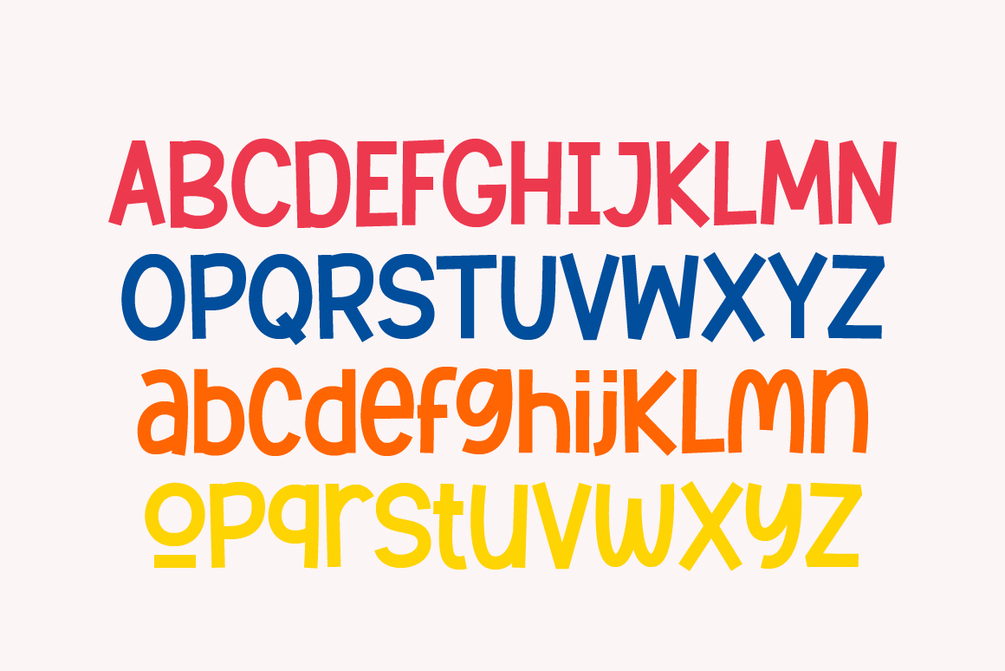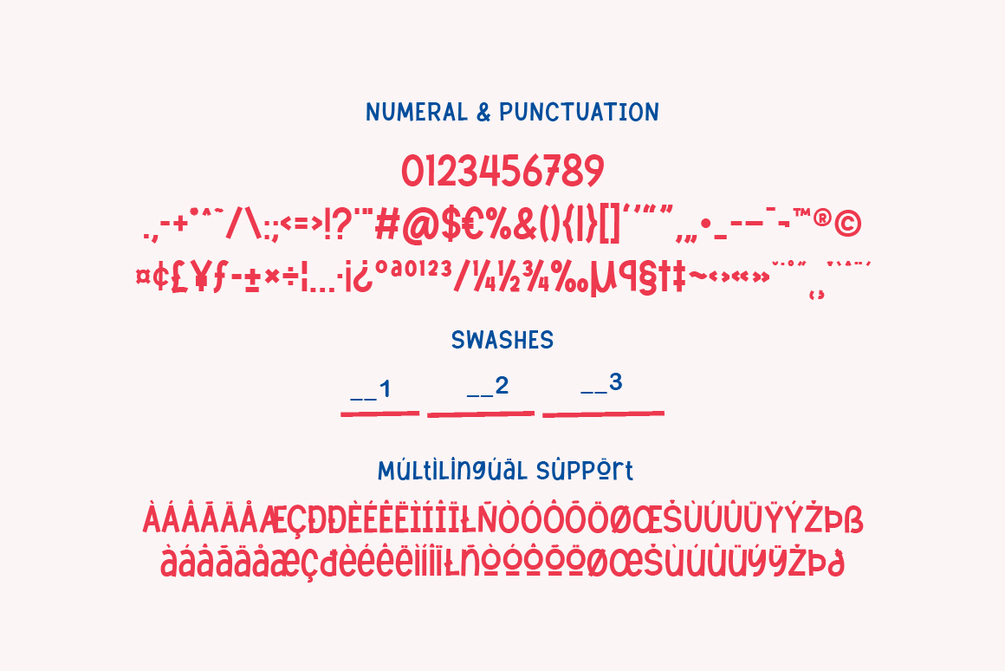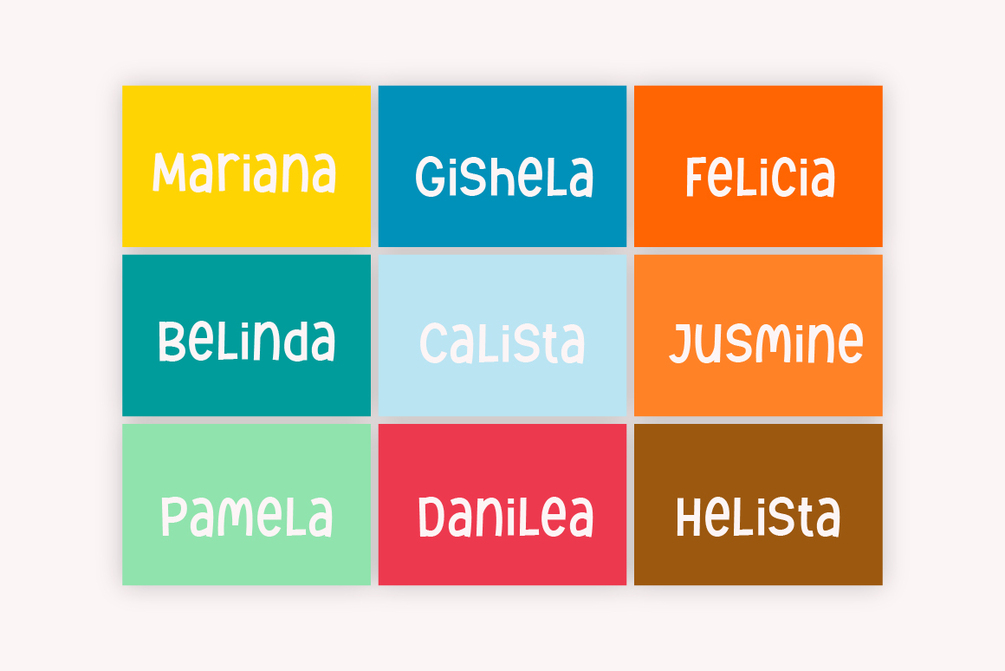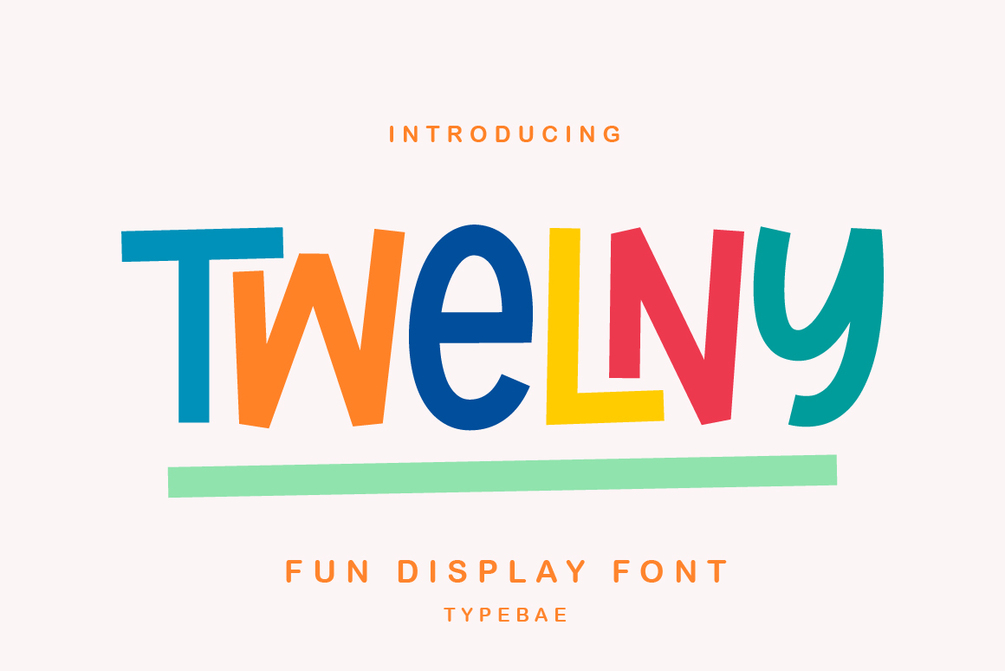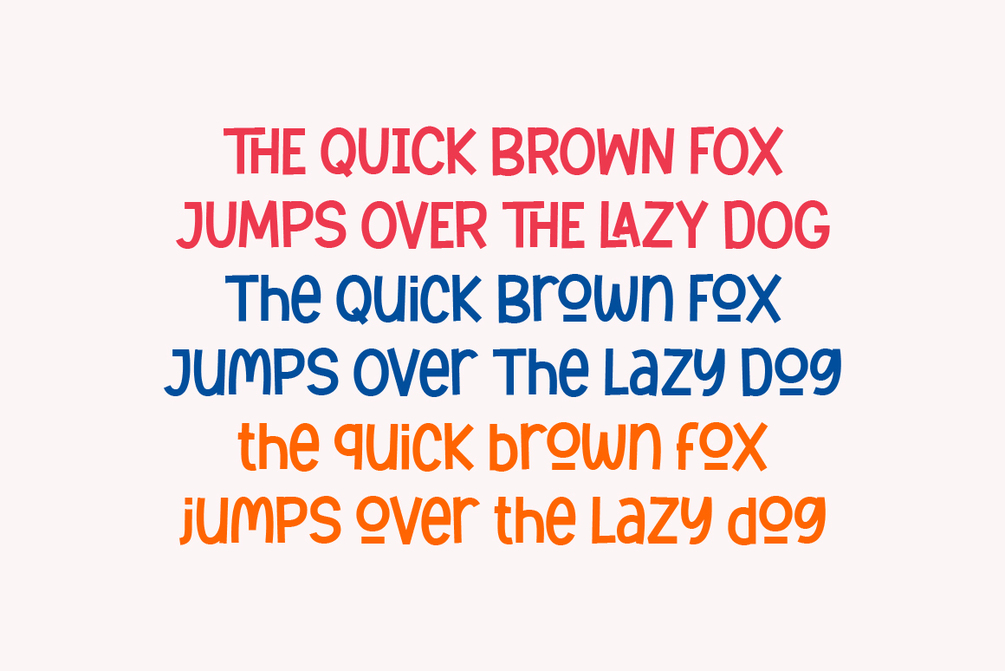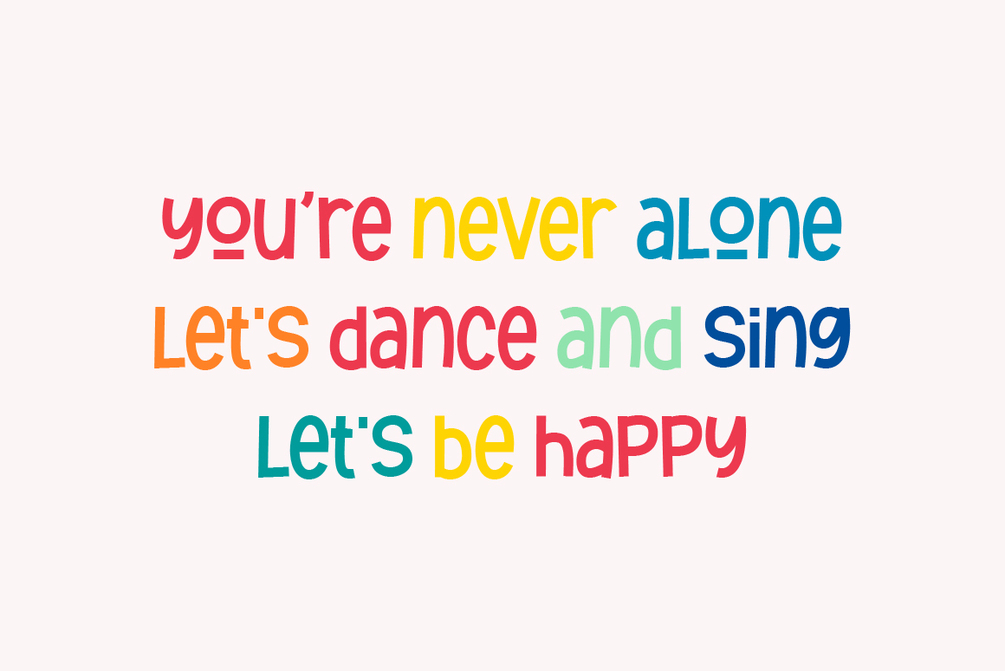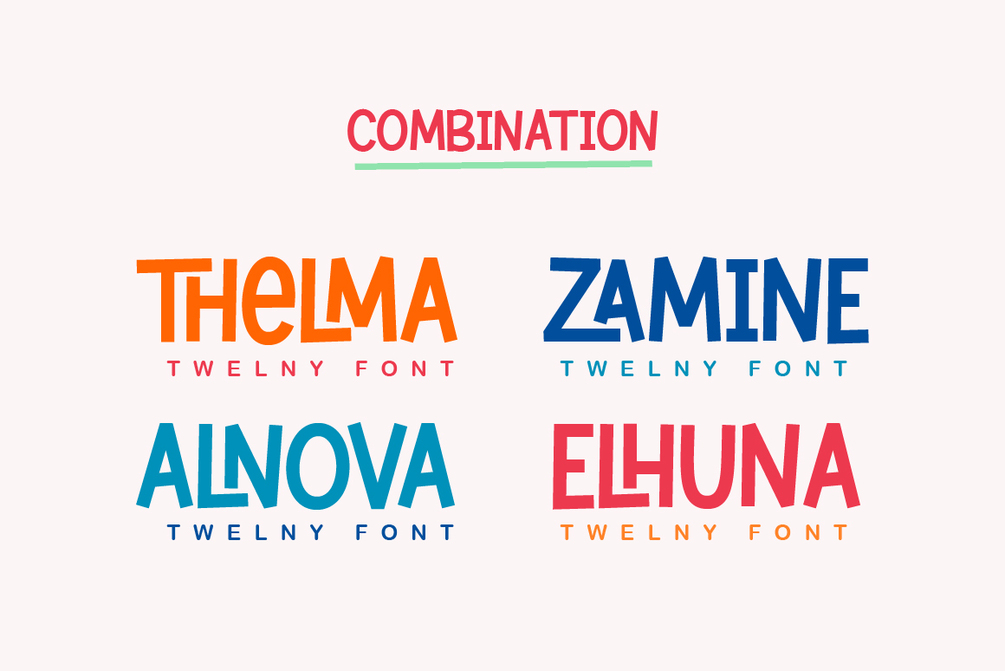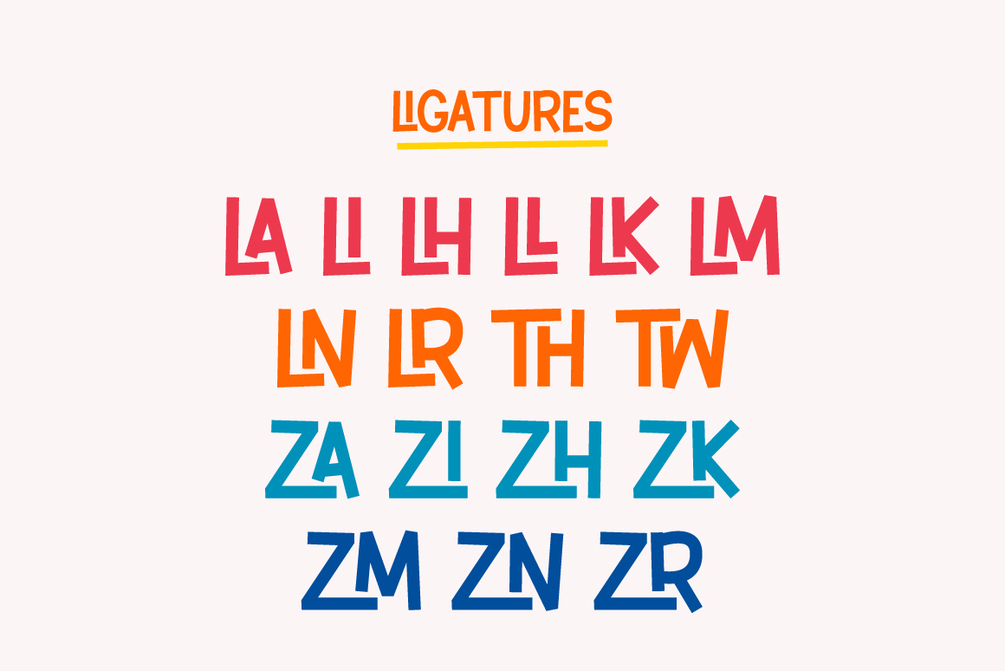
Twelny
Twelny is an incredibly quirky and sweet display font with cheerful ligatures. Whether you use it for cartoon related designs, children games or just any creation that requires a lovely touch, this font will be an amazing choice.
- Uppercase, Lowercase, Numeral & Punctuation
- 17 Ligatures
- PUA Encoded & Multilingual